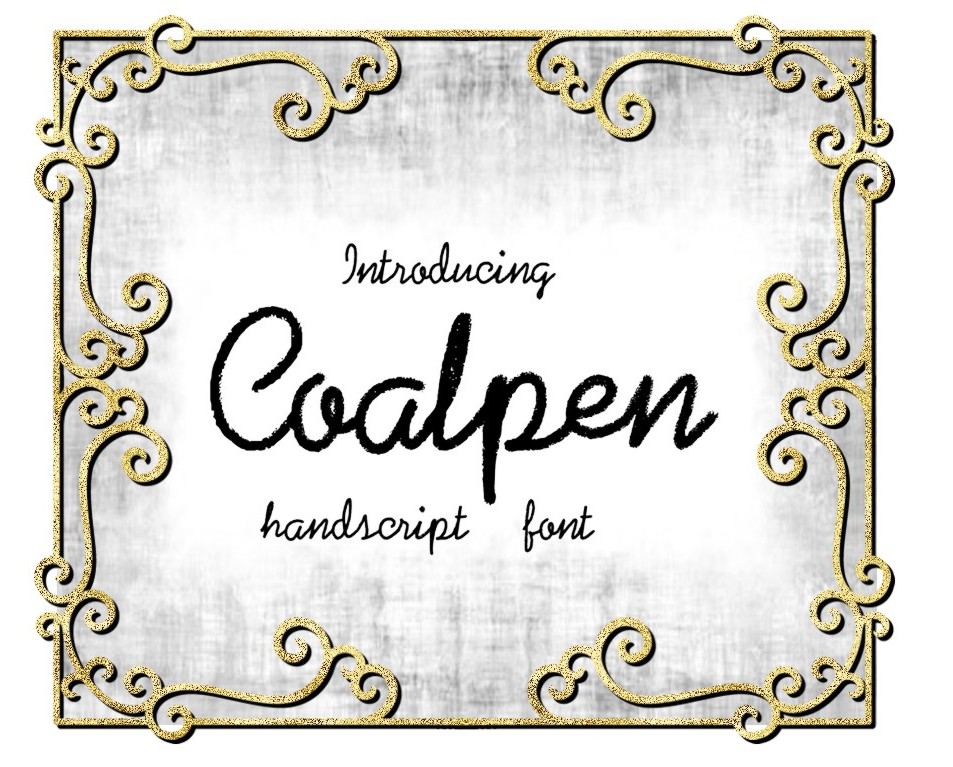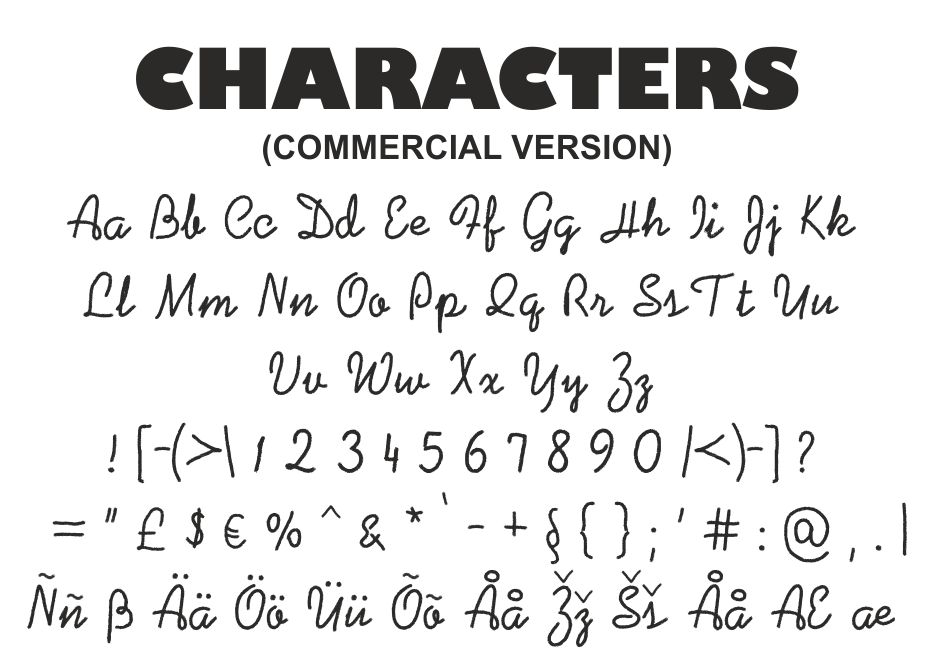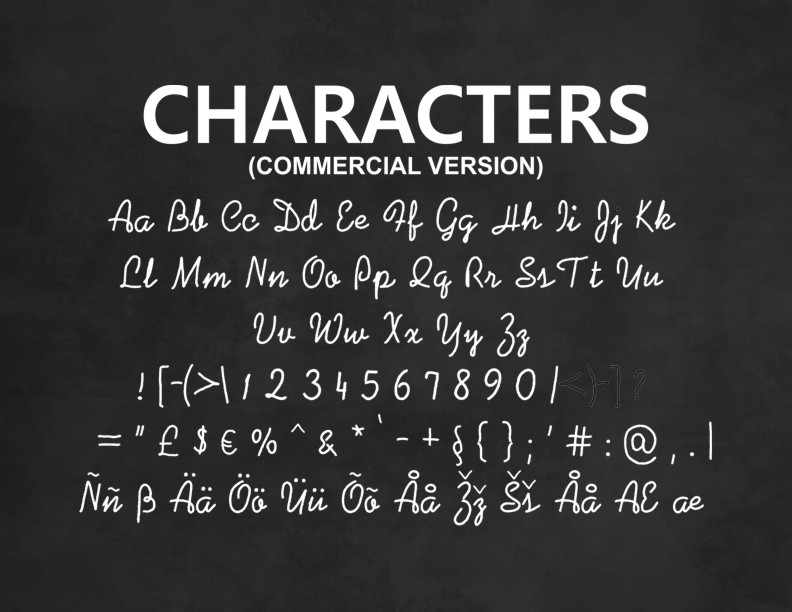
Discovering the Beauty of Handwritten Fonts: Coalpen Font
There’s something magical about finding the perfect font for a project. You’re pouring over design options, trying to match the tone and feel of your message, when suddenly you stumble upon it – the one that makes everything click. For designers, this moment is a thrill unlike any other, and it’s what makes the process of creating something truly special so rewarding.
Enter Coalpen Font, a fine handwritten typeface designed to capture the essence of handwritten notes and personal touches. This beautiful font is perfect for adding a touch of warmth and personality to your designs, from wedding invitations to branding materials.
With Coalpen Font, designers can add a unique, human element to their work, setting it apart from more generic, computer-generated fonts. Whether you’re a seasoned pro or just starting out, this valuable resource is sure to inspire your creativity and elevate your designs to the next level.
Key Features of Coalpen Font
- Font Family: Coalpen Font is a unique, handwritten font designed to mimic the feel of coal-pen writing.
- Unique Characteristics: The Coalpen Font features a distinctive, hand-drawn look with subtle variations in line width and style, giving it a natural, organic feel.
- Language Support: Coalpen Font supports a wide range of languages, including Latin, Cyrillic, and Greek alphabets, making it suitable for international use.
Coalpen Font Review
As a designer, I was excited to try out the Coalpen Font, and here’s my honest review.
The Coalpen Font is a beautiful, hand-drawn font that exudes a sense of elegance and sophistication. I particularly love its unique, quirky feel that’s perfect for adding a touch of personality to designs.
- The font’s brush-like strokes give it a charming, organic feel that’s hard to resist.
- Its versatility makes it suitable for a wide range of projects, from logos and branding to digital products and publications.
While the Coalpen Font is a great addition to any designer’s toolkit, it’s not without its limitations.
- The font may be a bit too ornate for certain projects, such as body text or headlines where legibility is a top priority.
- Some users may find the font’s quirks and imperfections distracting, particularly in large blocks of text.
In conclusion, the Coalpen Font is a beautiful, versatile font that’s perfect for designers looking to add a touch of personality to their work. While it may not be suitable for every project, its unique charm and elegance make it a valuable addition to any designer’s toolkit.
Tips for Getting the Most Out of Coalpen Font
Coalpen Font is ideal for creating rustic, vintage-inspired designs. To get the most out of it, try the following:
- Pair Coalpen Font with other distressed or vintage fonts for a unique look.
- Use Coalpen Font for headings and subheadings to add visual interest to your design.
- Experiment with different font sizes and styles to create a dynamic and engaging design.
Coalpen Font is commonly used for:
- Rustic or vintage-inspired designs.
- Wedding invitations or
Alternatives to Coalpen Font for Designers
Lobster Font is a modern, cursive script font ideal for creating a unique and elegant look. It is suitable for headings, titles, and body text where a touch of sophistication is desired.
Compared to Coalpen Font, Lobster Font has a more refined and polished appearance, making it a great choice for high-end designs and branding materials. However, it lacks the handwritten feel of Coalpen Font.
Pacifico Font is a beautiful, cursive script font that evokes a sense of relaxation and serenity. It is perfect for designs that require a calm and soothing atmosphere, such as wellness and lifestyle brands.